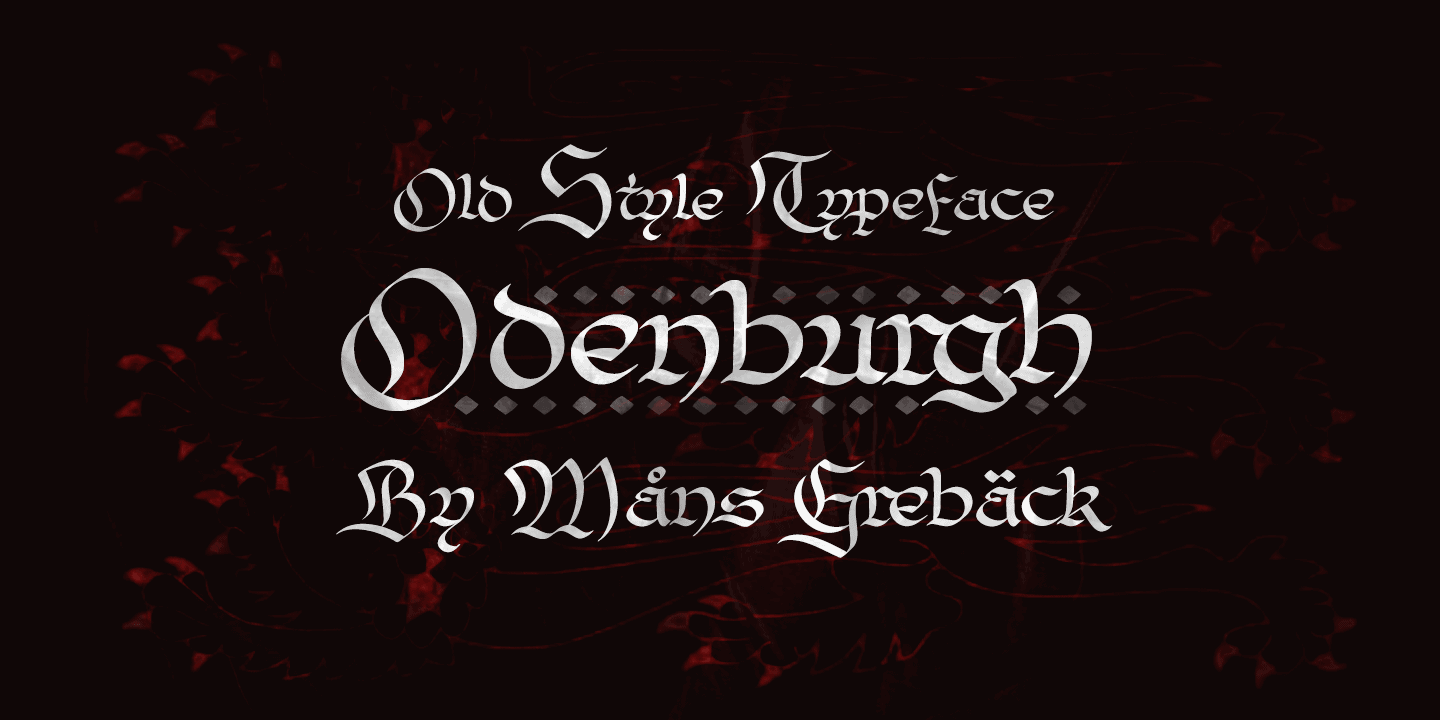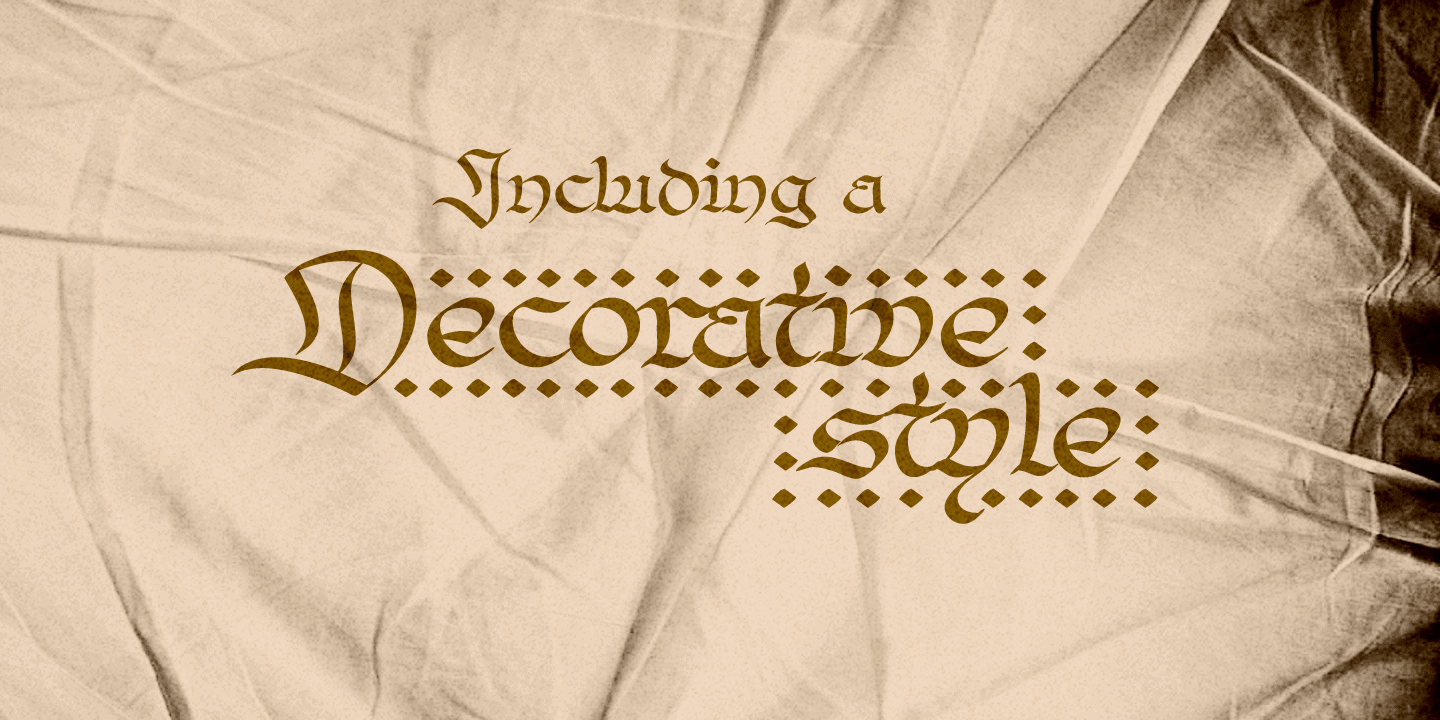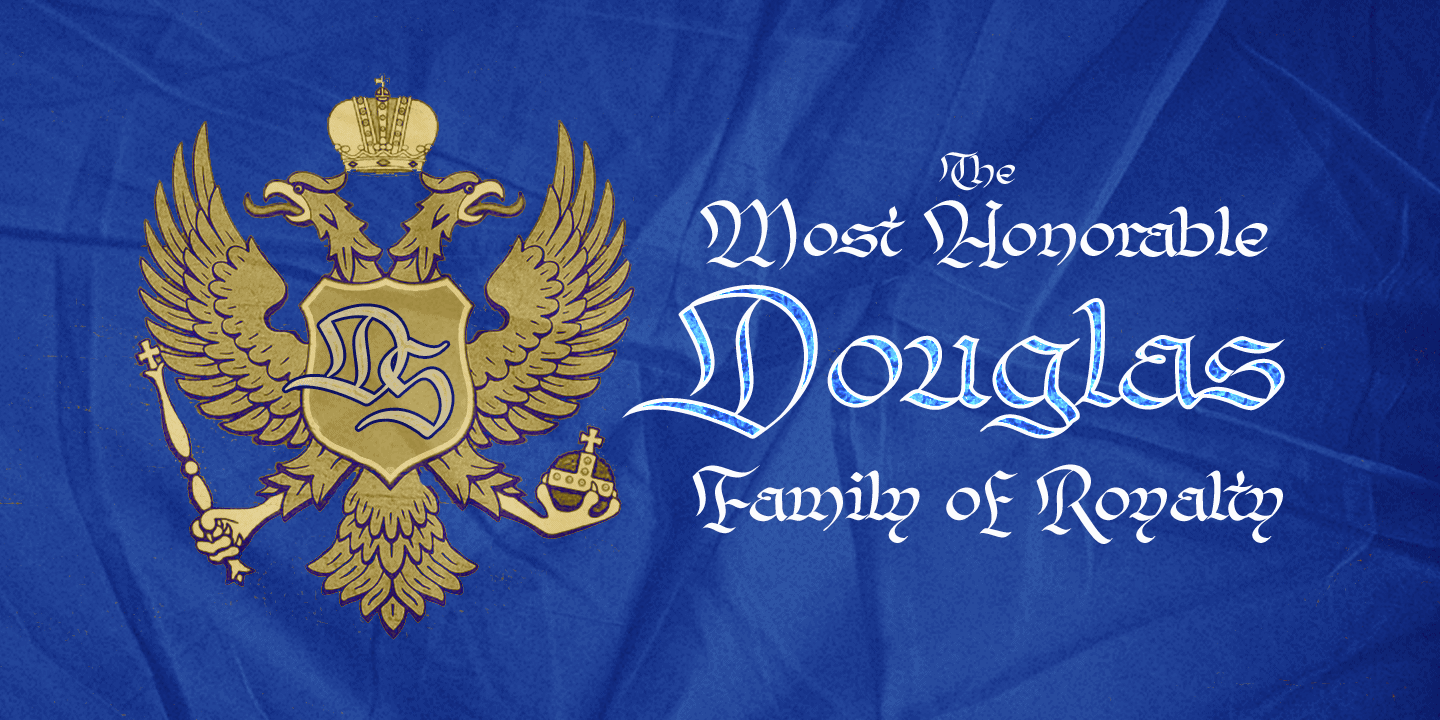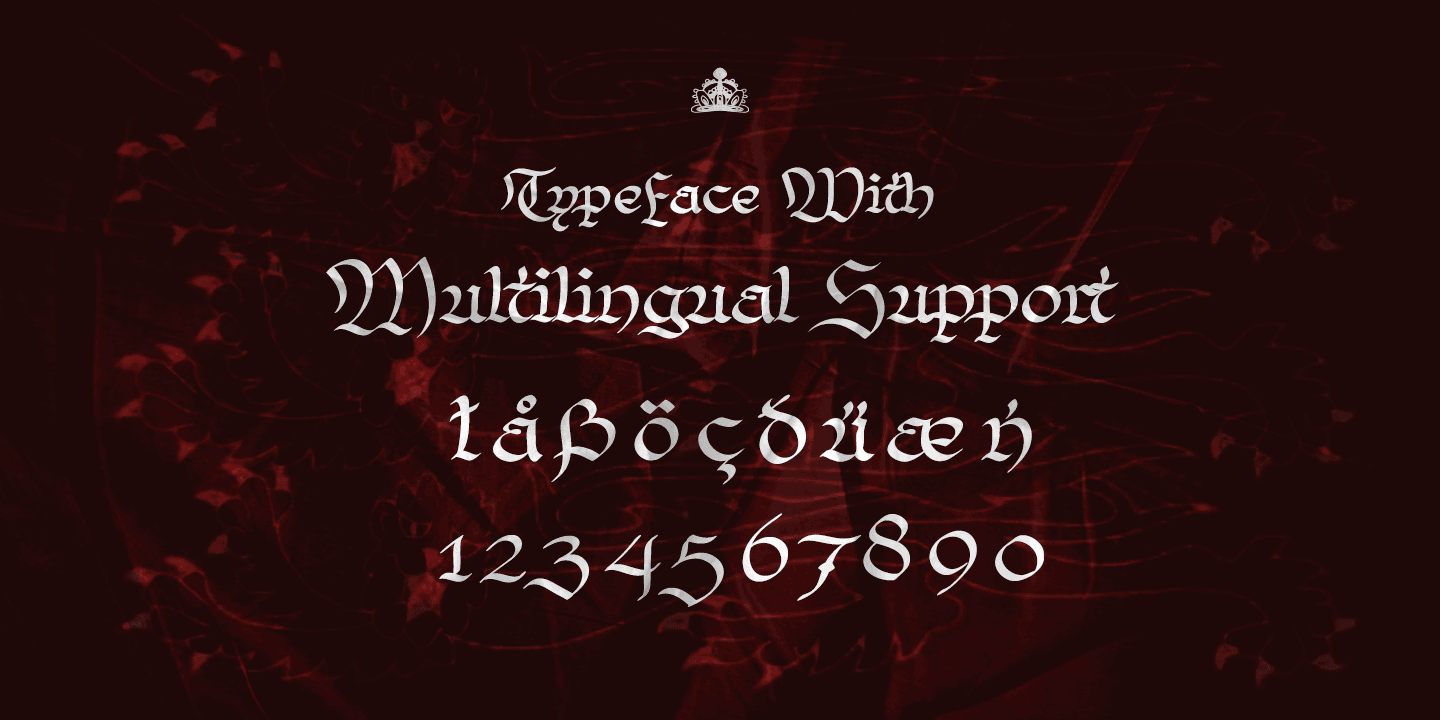
Odenburgh
Odenburgh is a Medieval-style calligraphy typeface. Hand-drawn by Måns Grebäck during 2018-2020, this high-quality lettering is inspired by historical Gaelic, British and Irish handwriting. It comes as a regular, clean style as well as the additional Odenburgh Deco style. The typeface is perfect for calligraphic headlines, products and logotypes in Middle Ages projects.
The font supports all European, Latin-based languages. In addition to that, it contains numbers and all punctuation and symbols you’ll ever need.